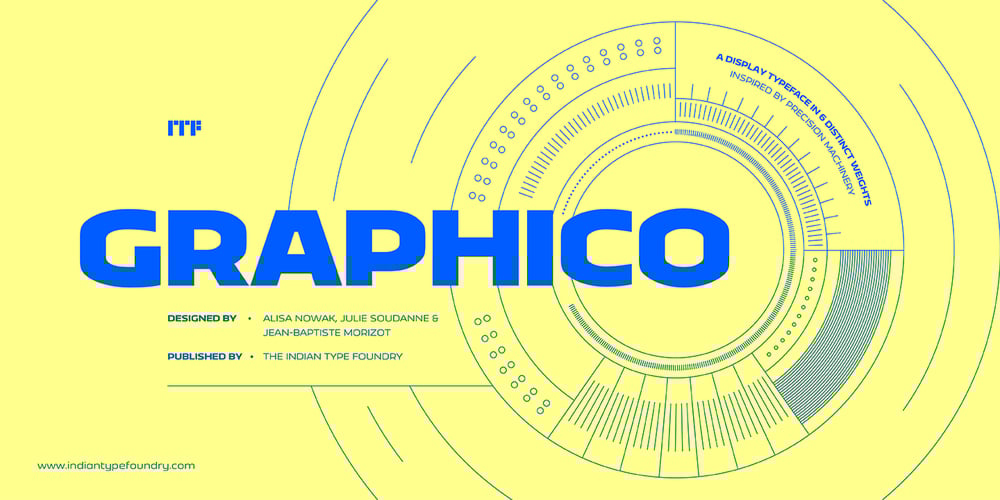
Graphico Font Family was designed by Alisa Nowak, Jean-Baptiste Morizot and published by Indian Type Foundry. Graphico contains 6 styles and family package options. Graphico is an extended display sans serif family. Its letterforms are industrial and square-sided. The typeface looks like the product of precision mechanics: it should be featured together with tech – either old tech like appliances or watches, or new tech like apps and laptop stands. As a font family, Graphico includes six styles that range in weight from light to black. The black is really nice and chunky, and can easily be used as a stand-alone design.